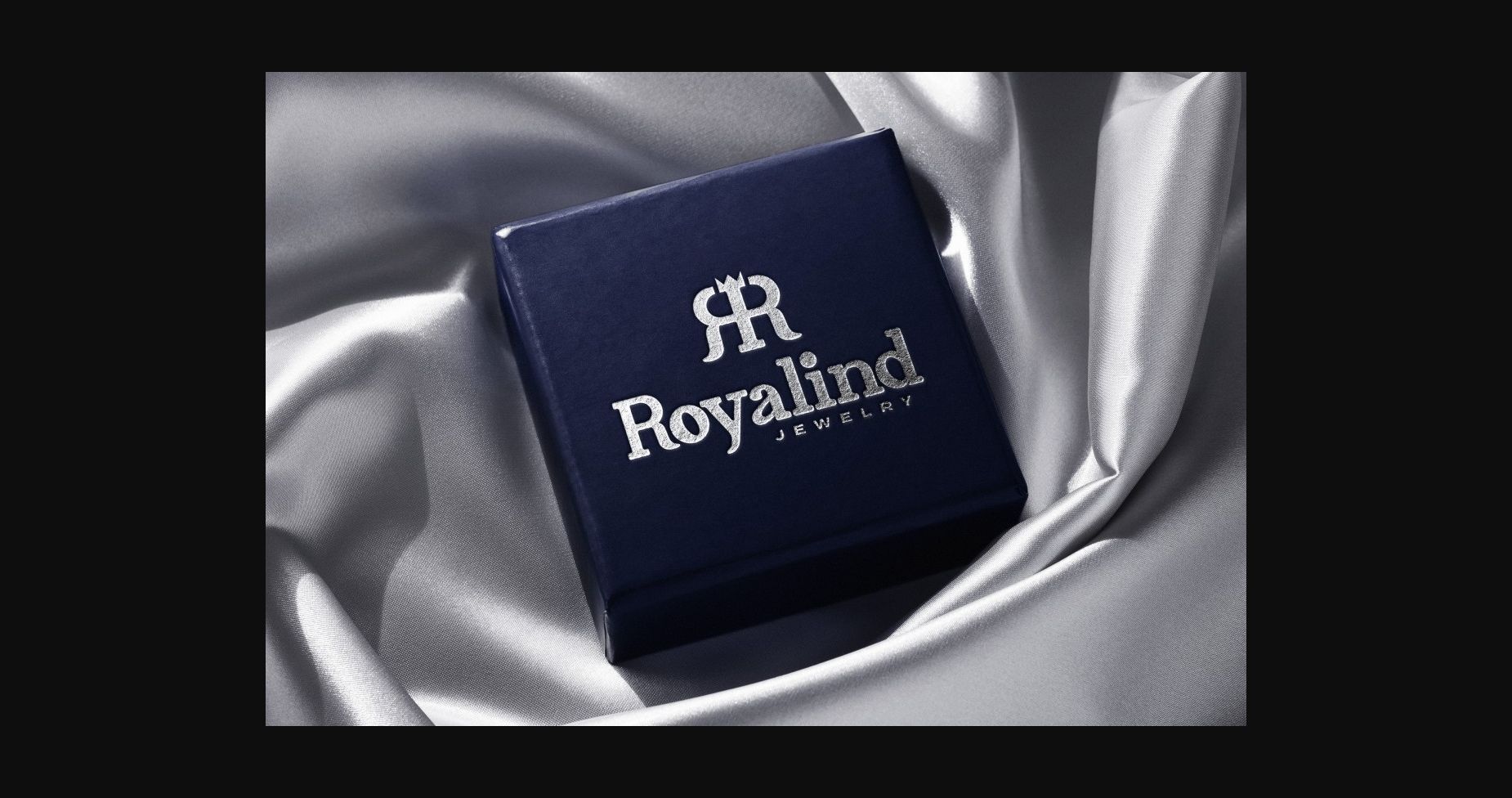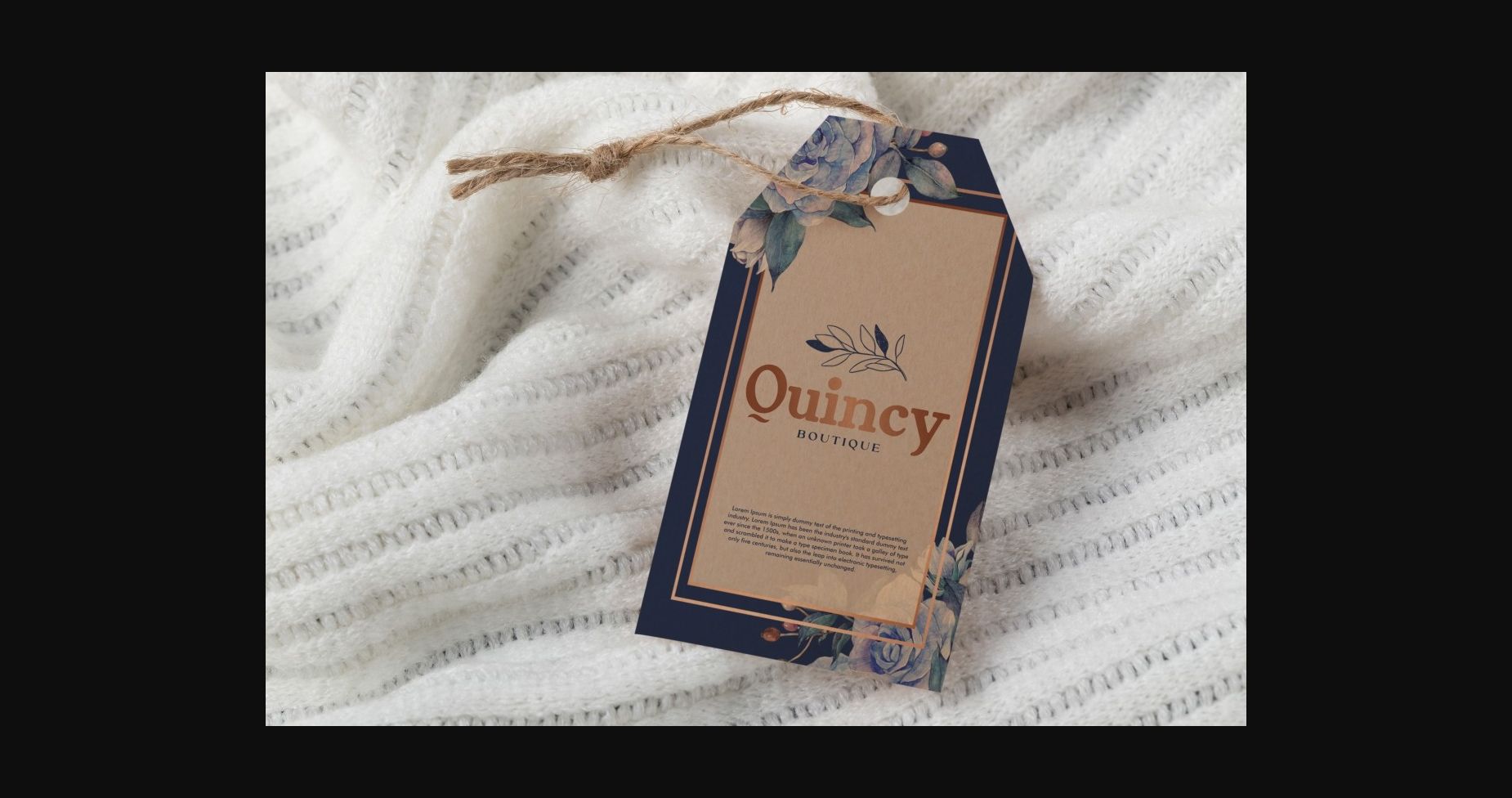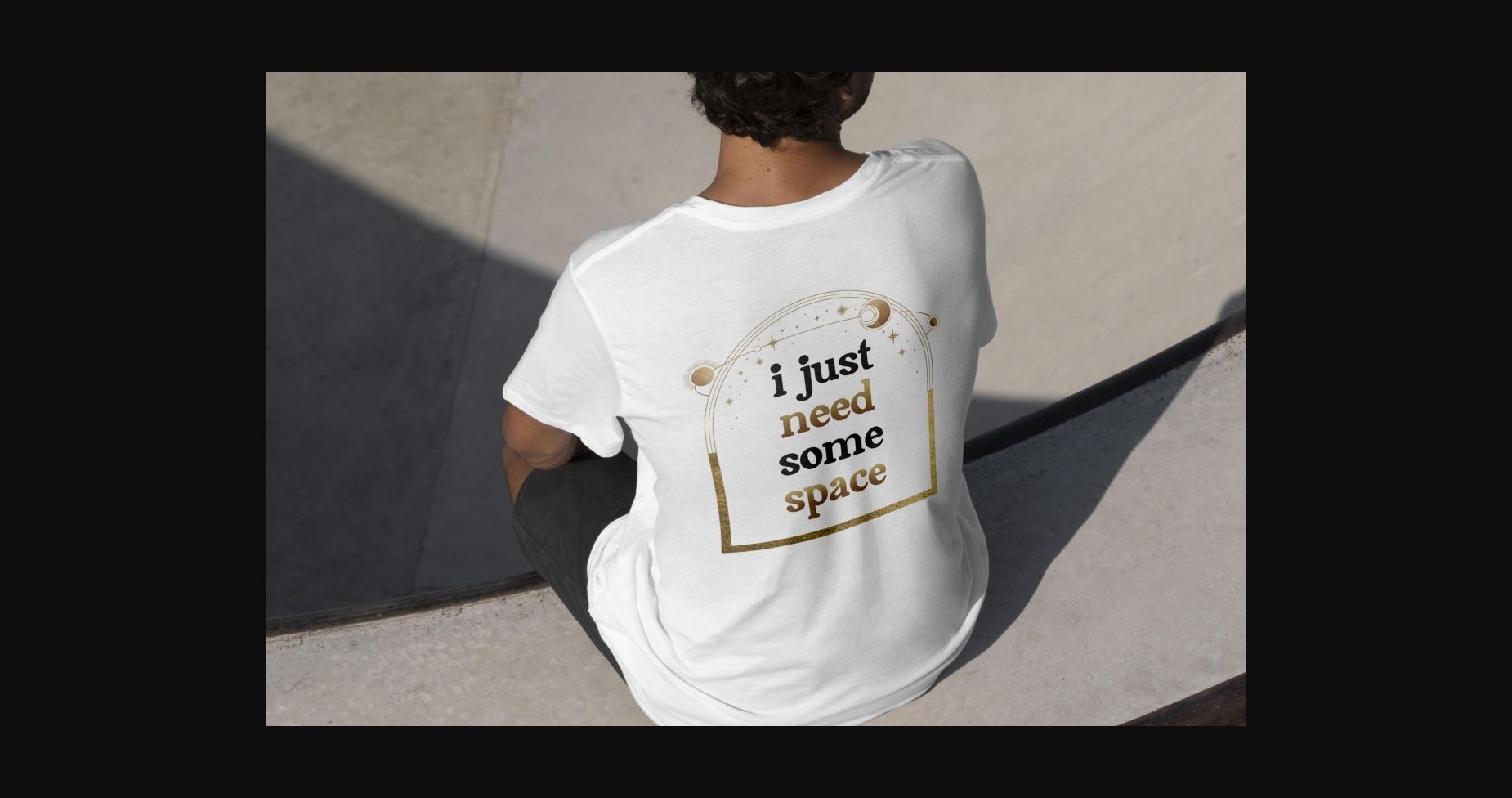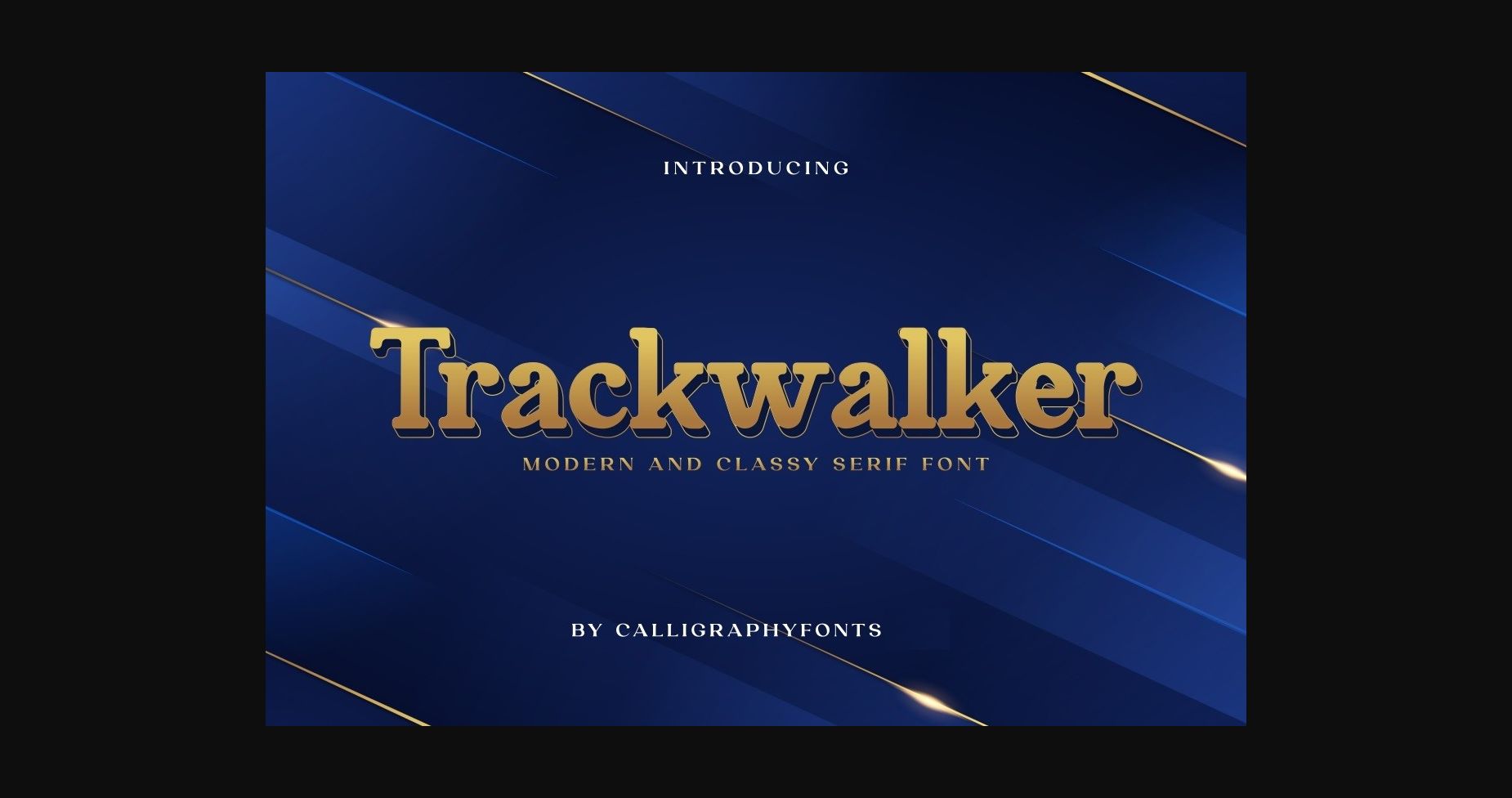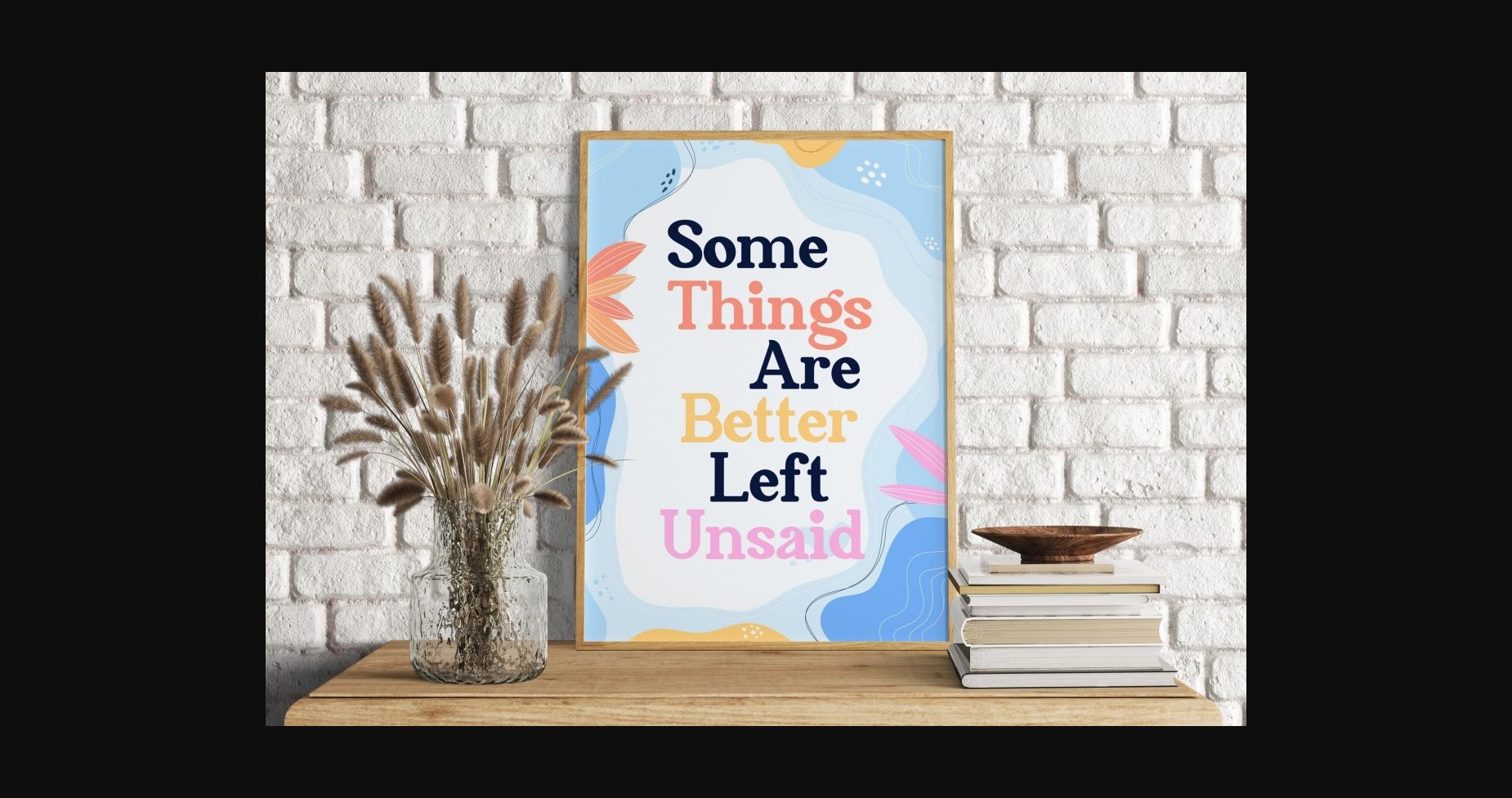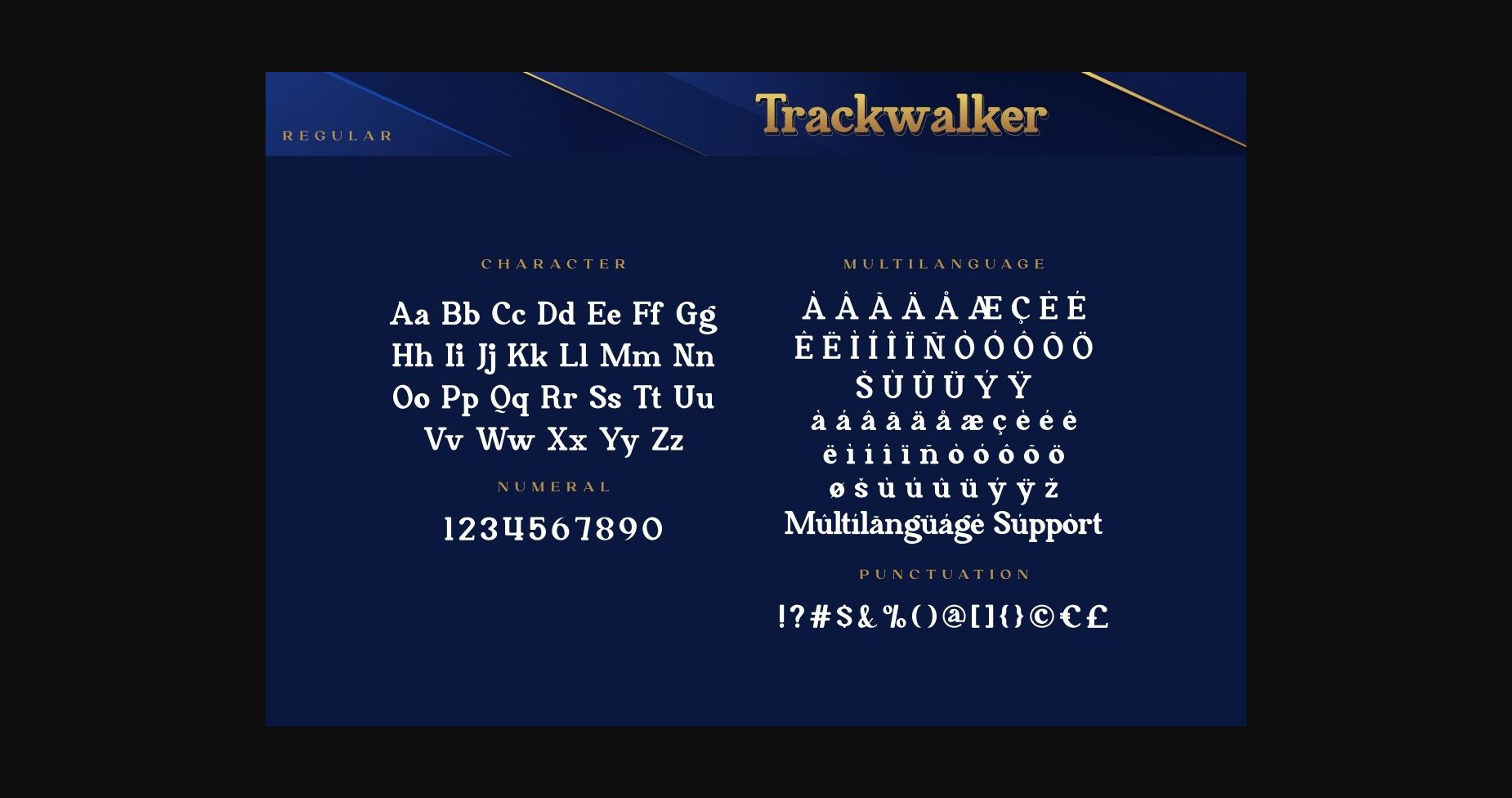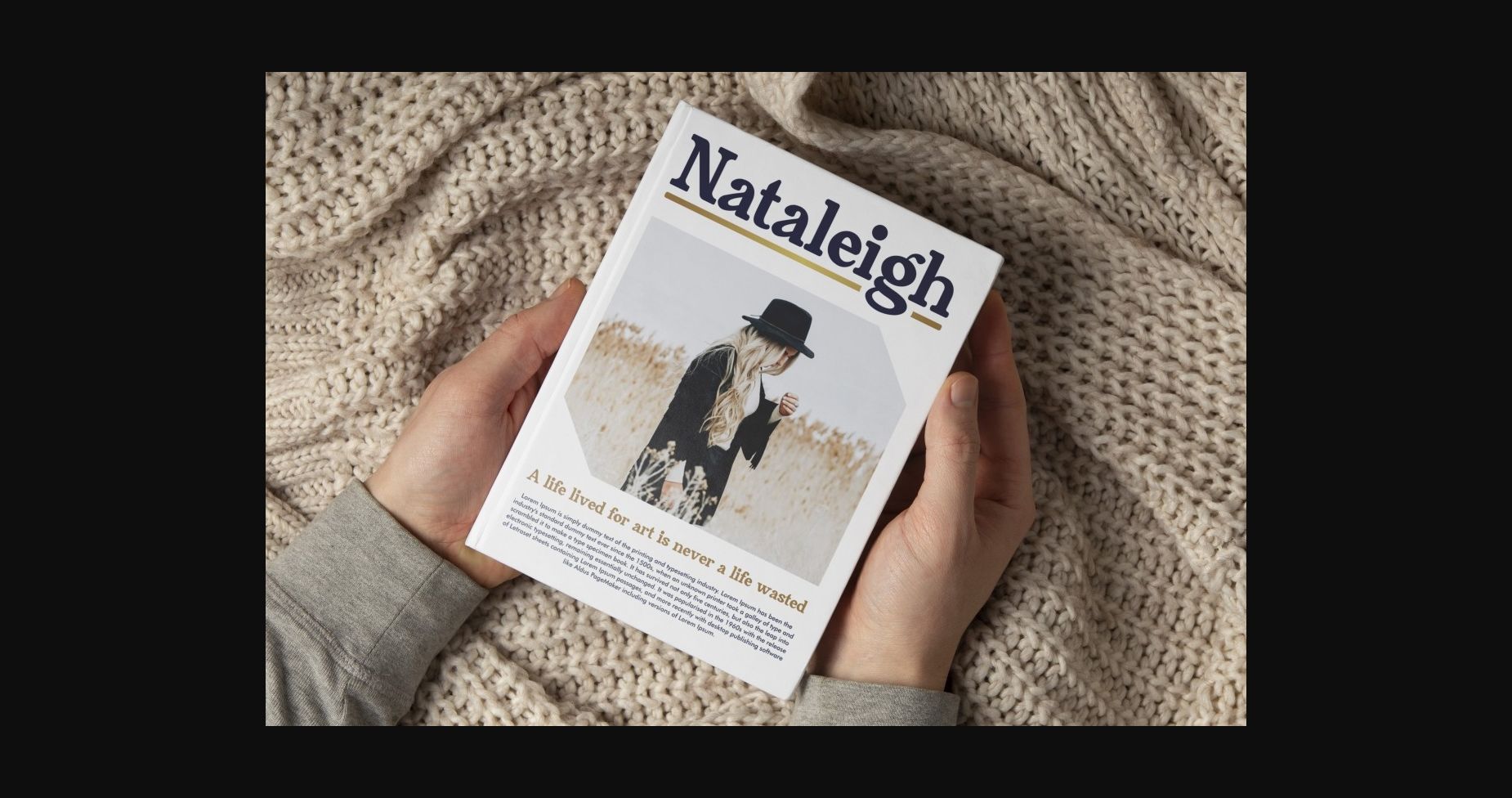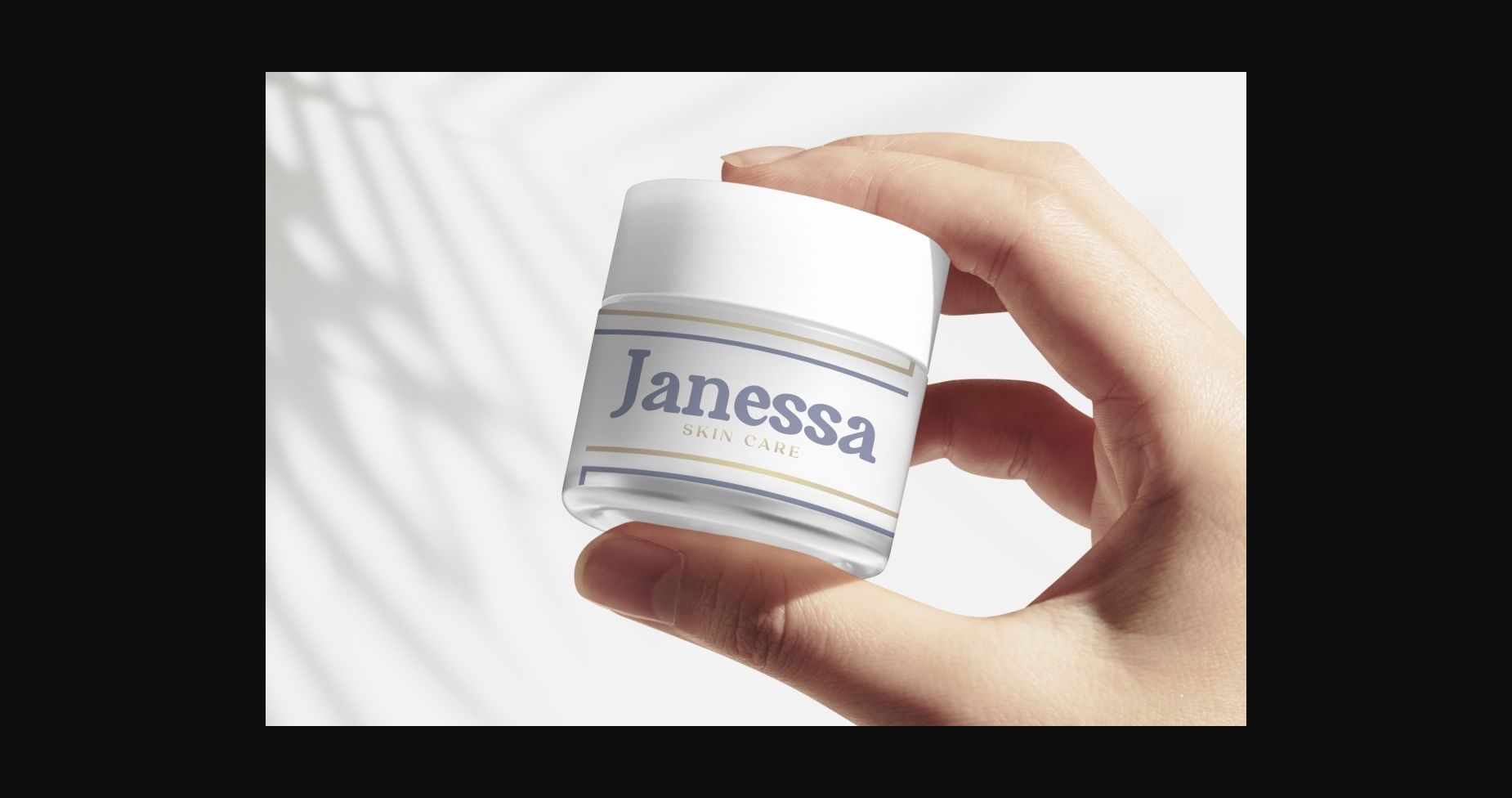
About Trackwalker Font
Trackwalker Font is a serif font that comes in two styles: regular and italic. This font is suitable for any industry such as author, boutique, cosmetic, craft, fashion, jewelry, publishing, and anything that requires an awesome look.
Trackwalker Font will be perfect for any creative project such as headlines, jewelry boxes, labels, print shirts, quotes, signage, and skincare packaging, and good for your secondary text font with the script. This font has a perfect appearance and makes it easy for readers.